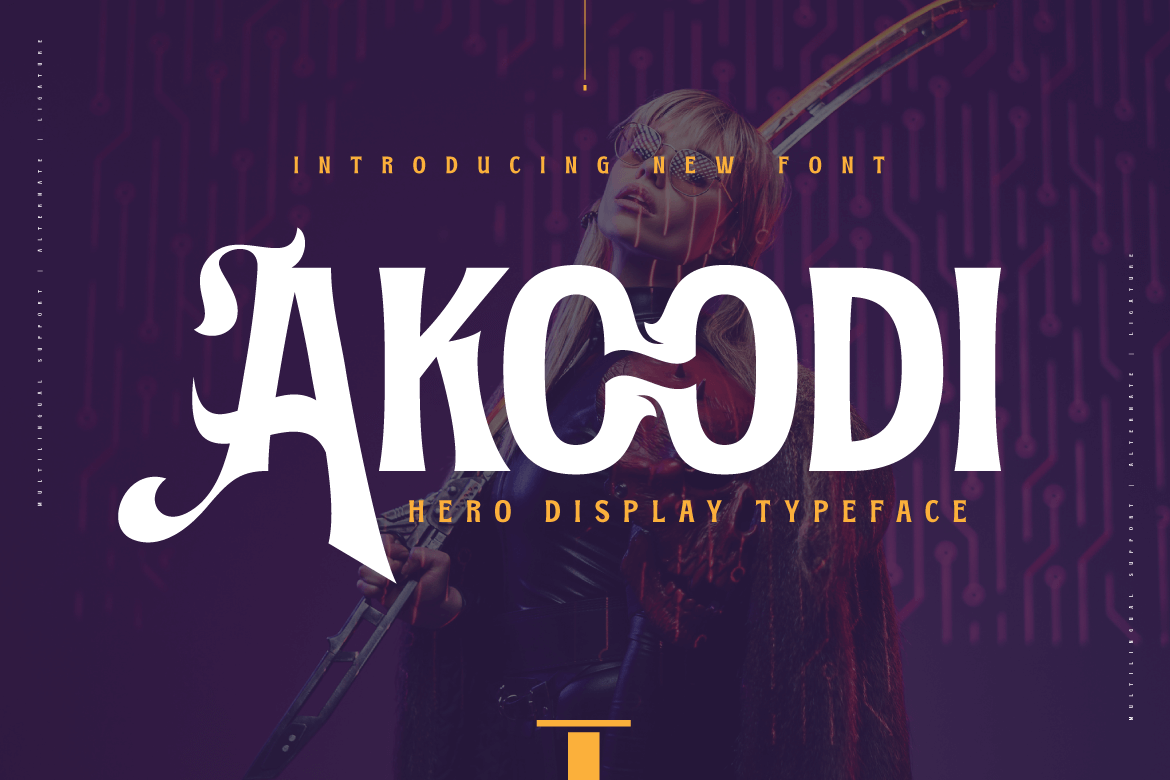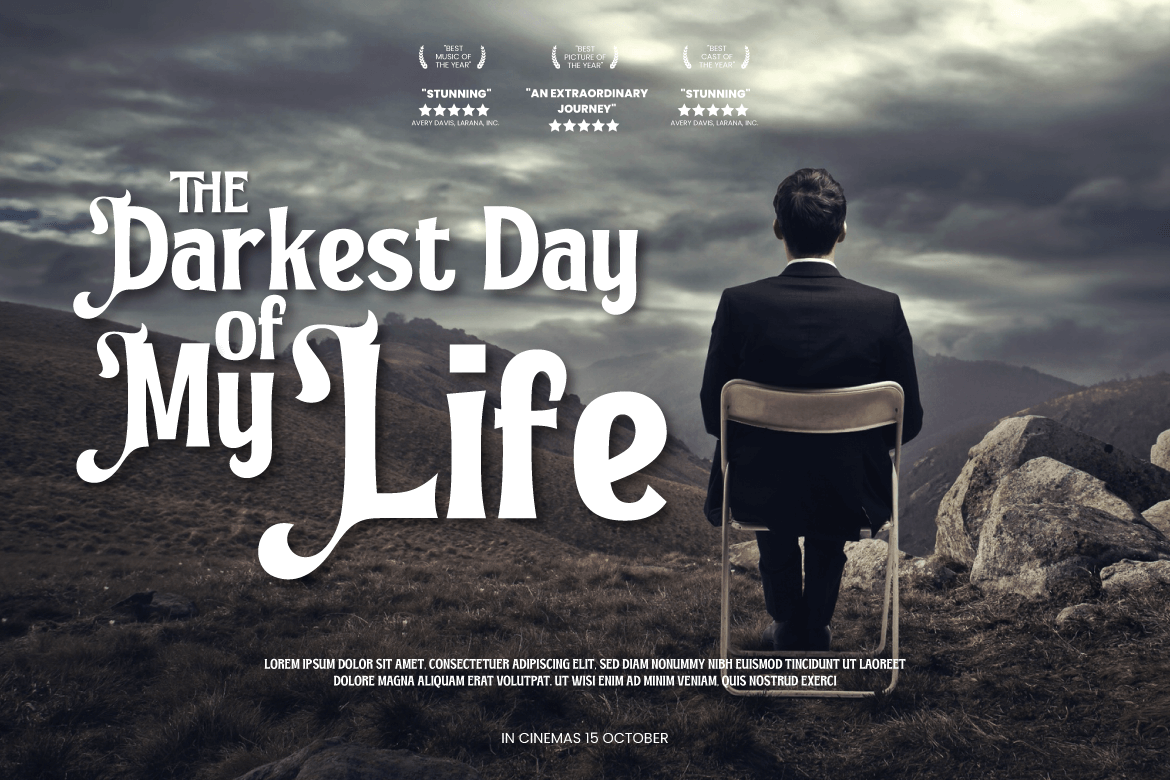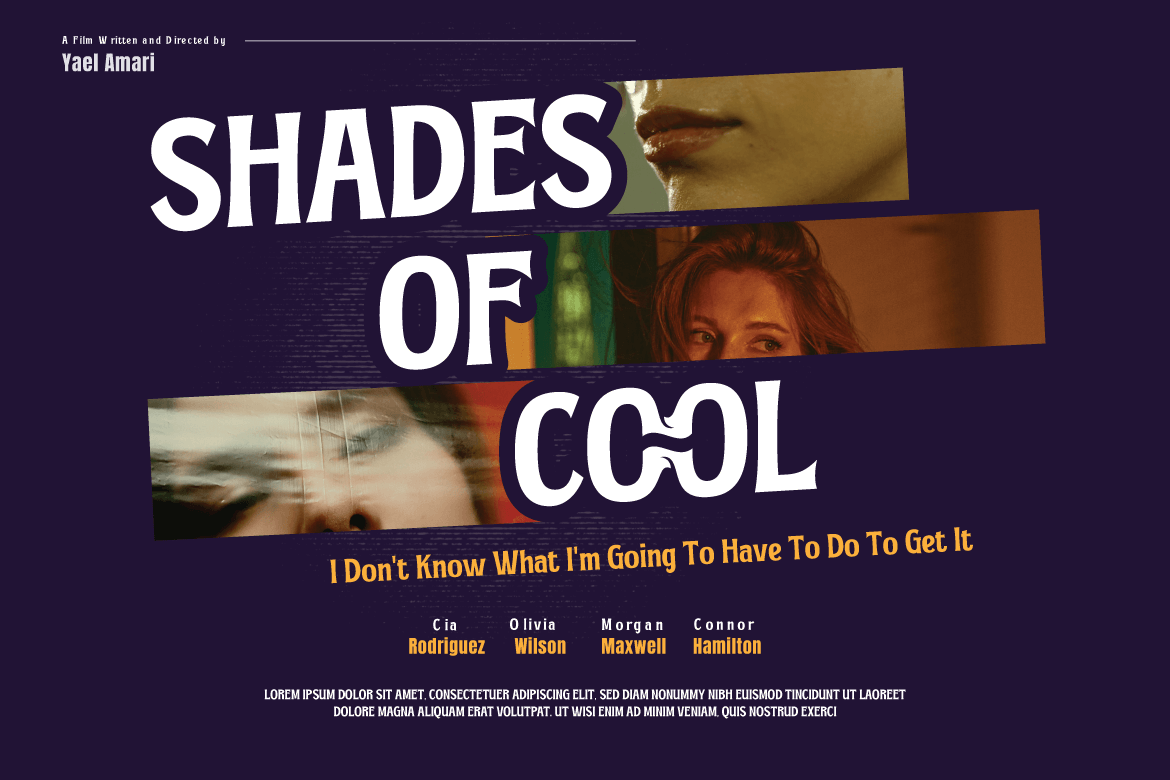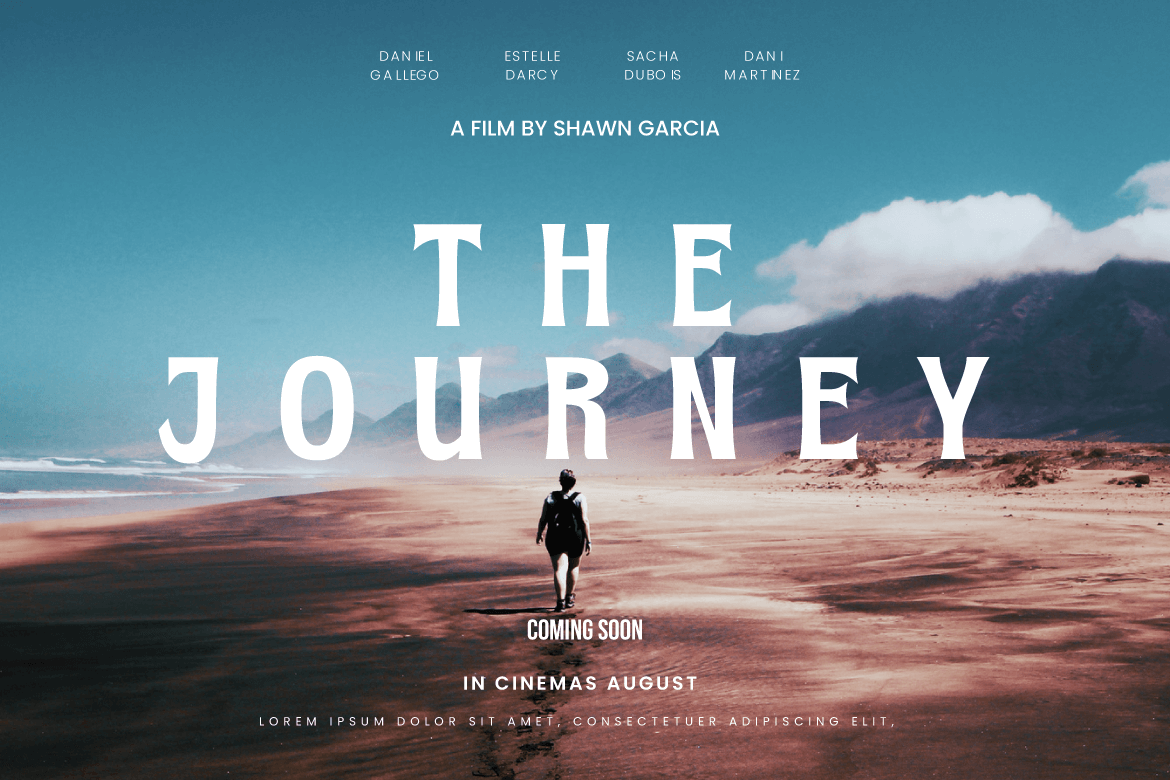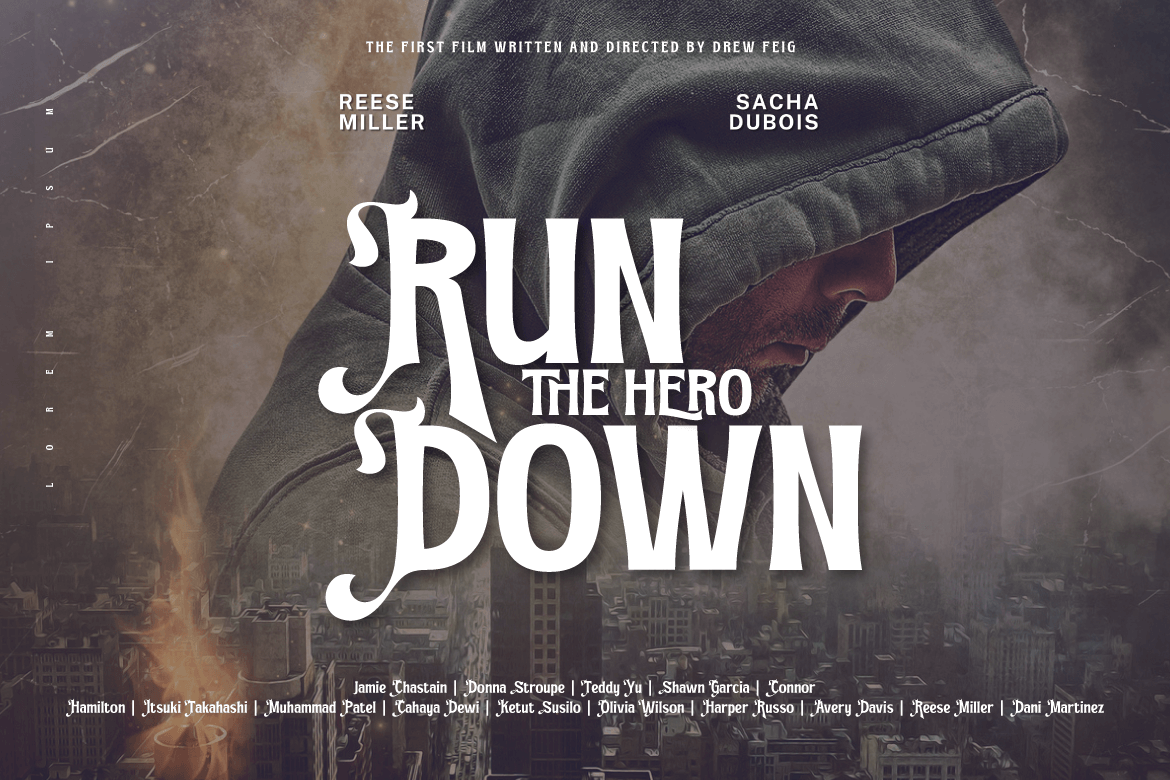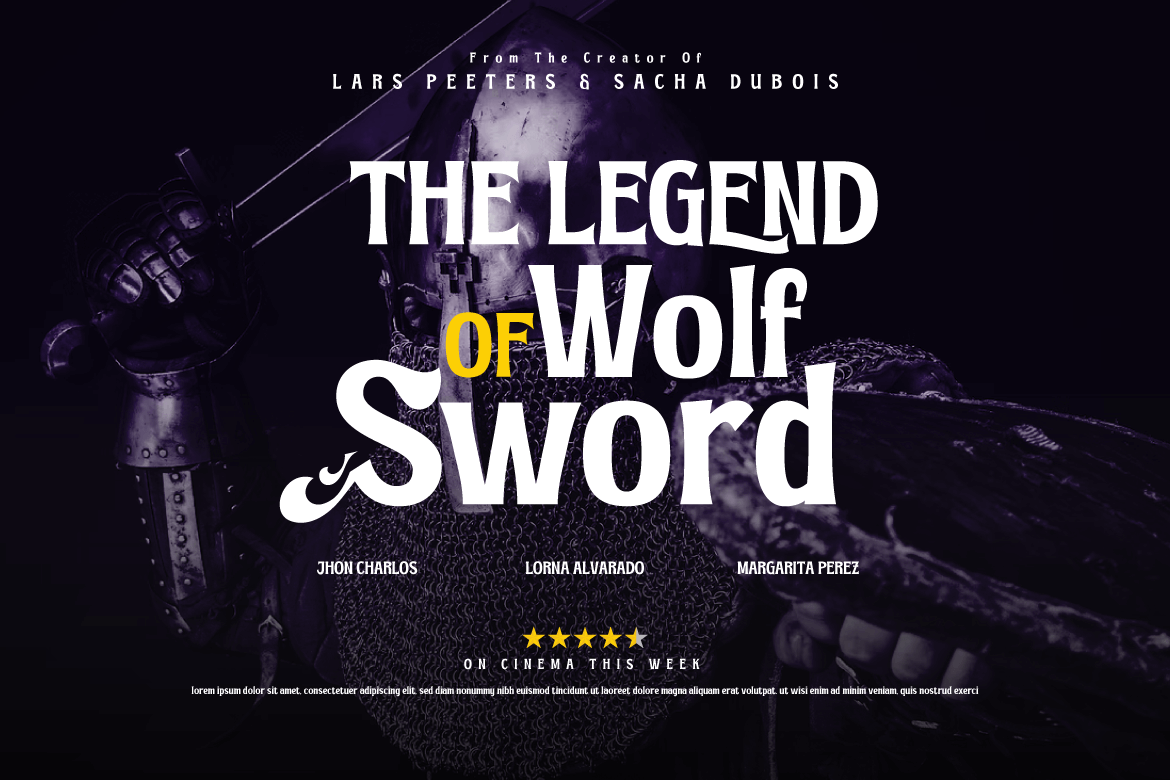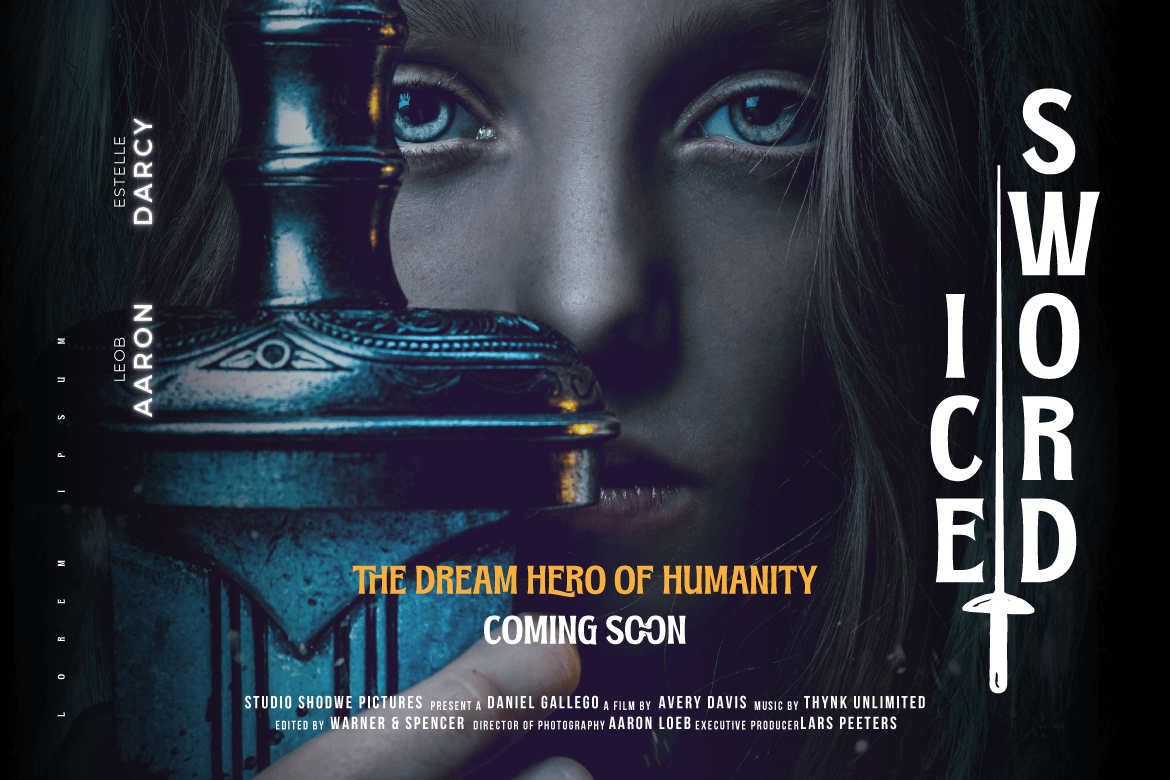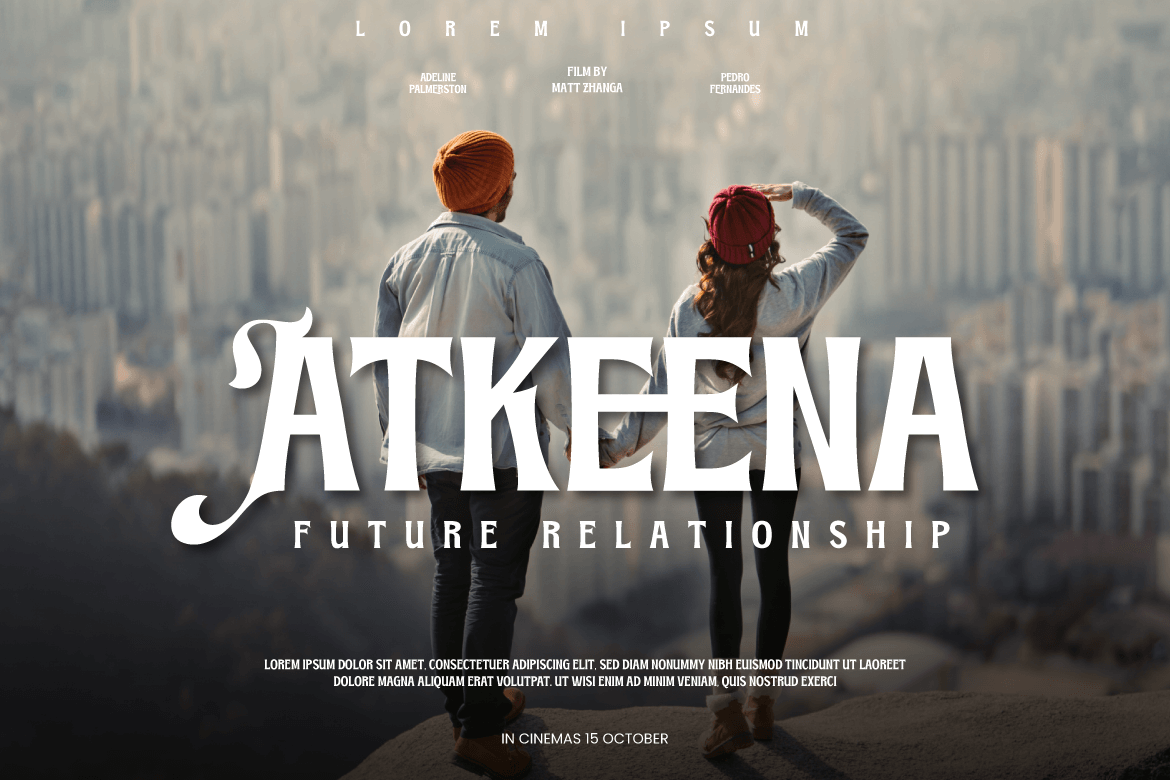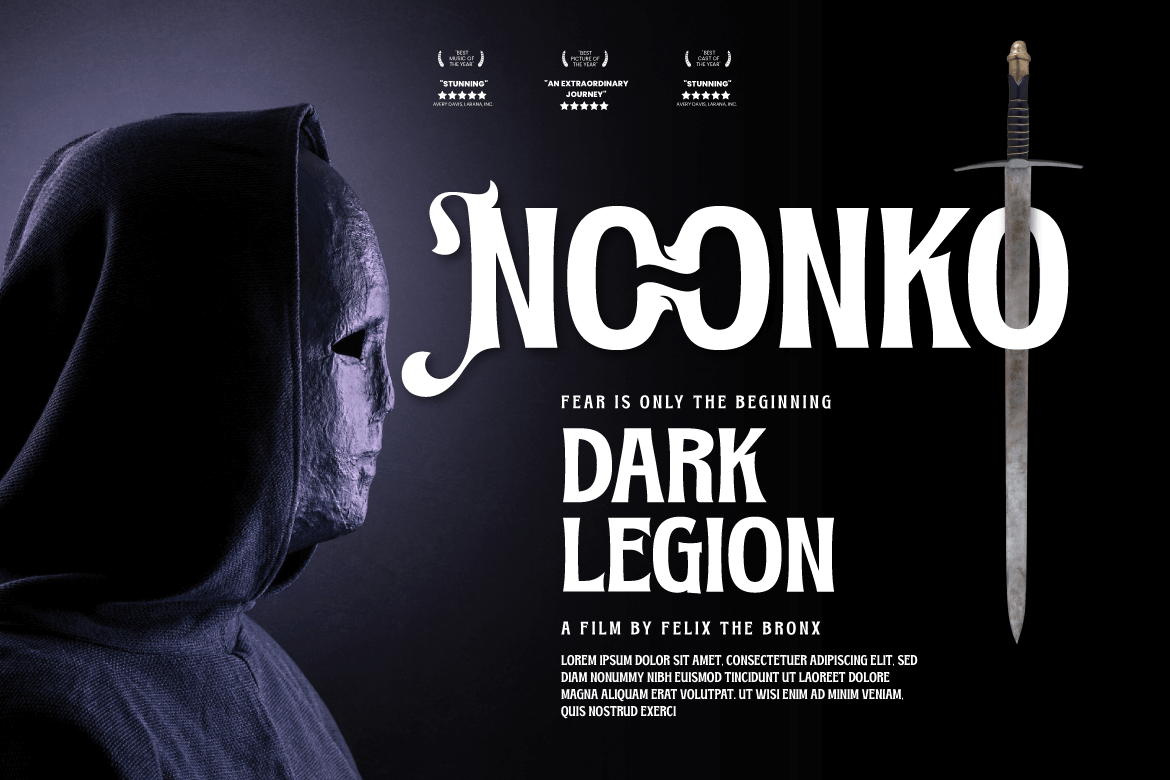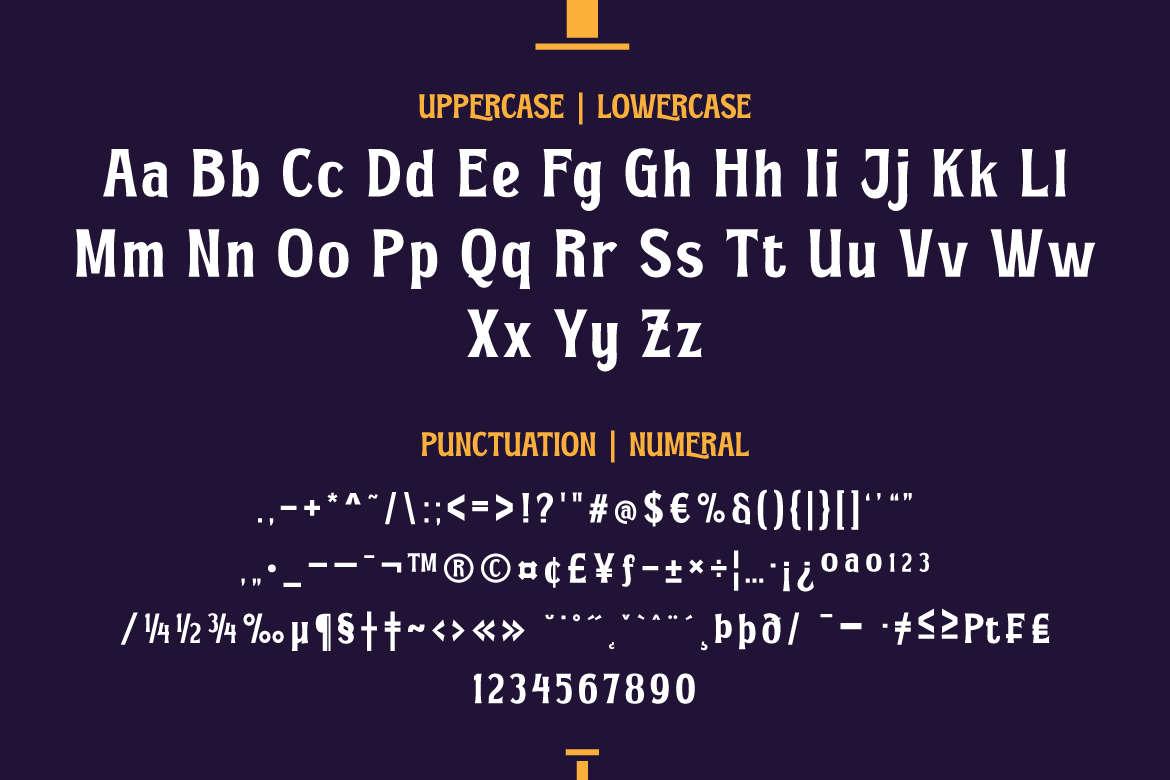
Akoodi – Display Font For Superhero Movie
Introducing Akoodi, the ultimate superhero font for all your design projects! This bold and stylish serif font features a superhero theme that’s perfect for creating eye-catching titles and headlines for movie posters and graphic design projects.
With its strong, prominent serifs and unique character design, Akoodi is a versatile font that can be used for a wide range of projects, from branding and marketing materials to book covers and packaging designs. The font includes a full set of upper and lowercase letters, punctuation, and numerals, making it a complete solution for all your design needs.
Furthermore, Akoodi is equipped with advanced features that make it easy to use and customize. The font comes with a full set of alternate characters, including a range of ligatures and swashes, which add an extra touch of style to your designs. Additionally, the font is fully compatible with a wide range of design software, making it simple to use no matter what your design process looks like.
• Ligature, Alternate